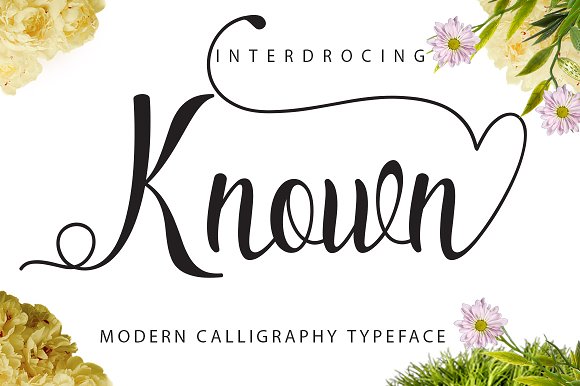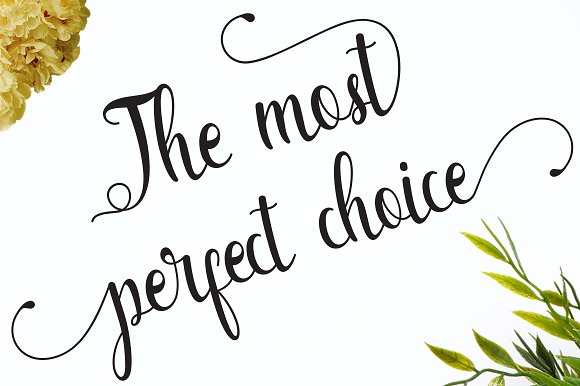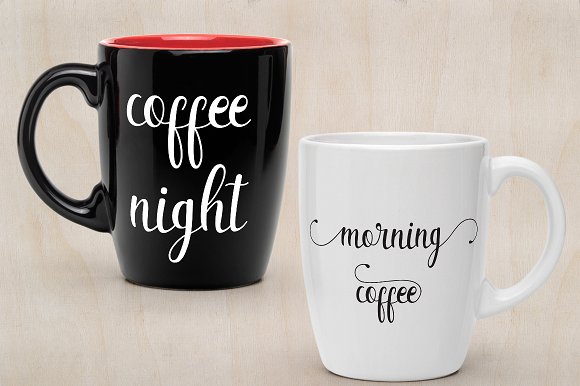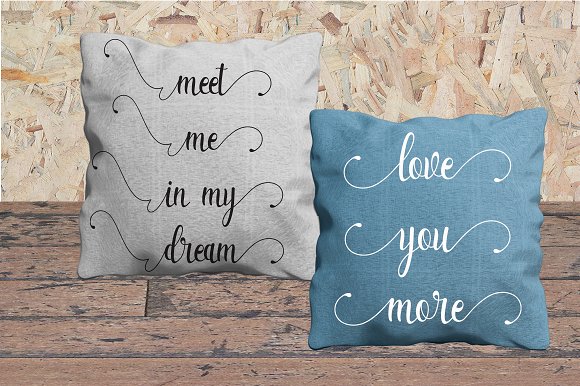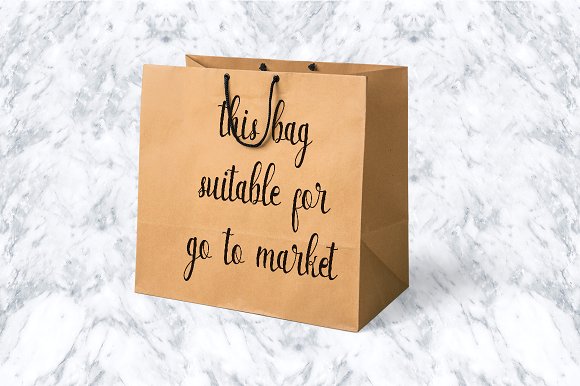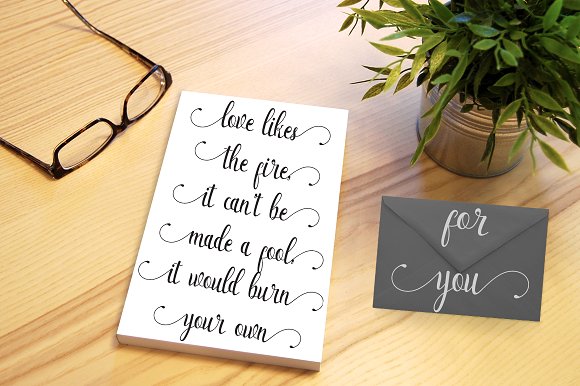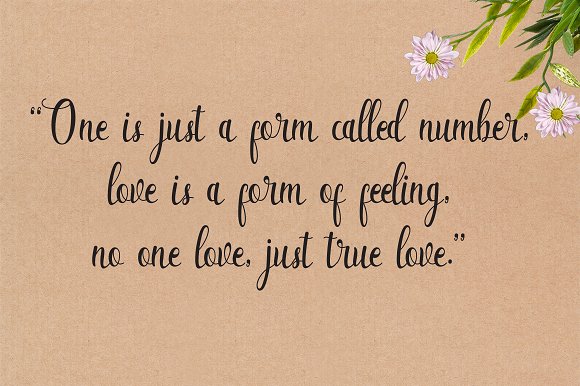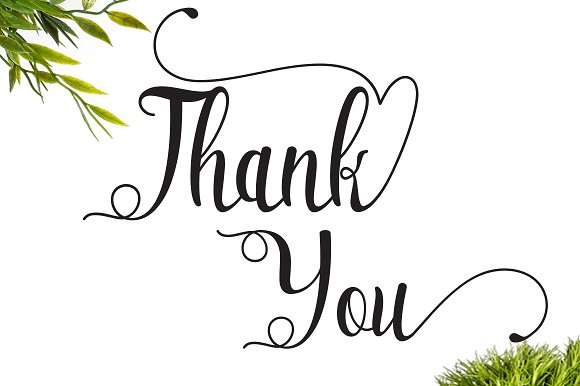
Known Font
About Known Font
Known is a handwritten script font by Jhoen Studios.
This stunning font is completely drawn by hand and contains many alternate characters with stunning swashes. The font is PUA encoded.